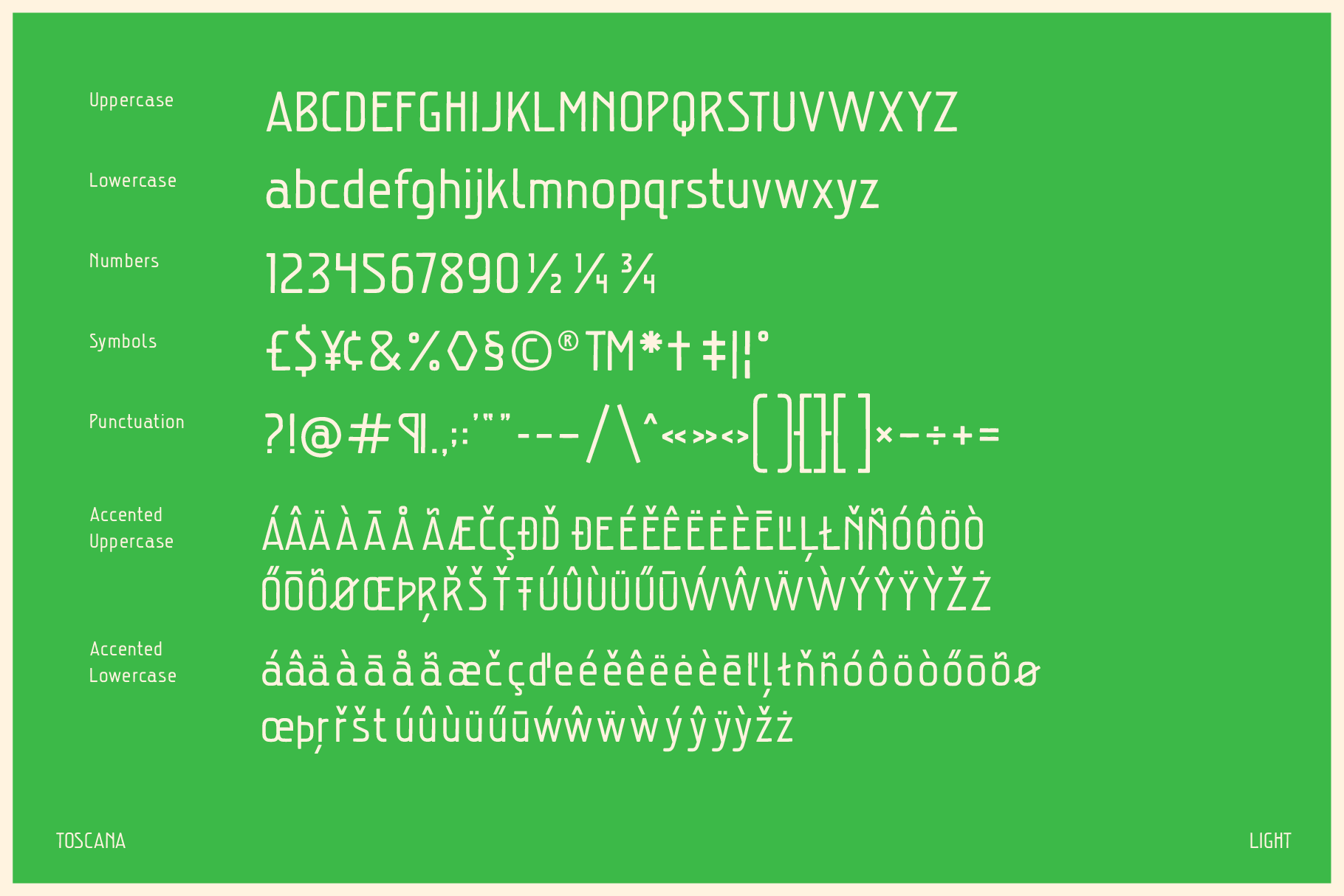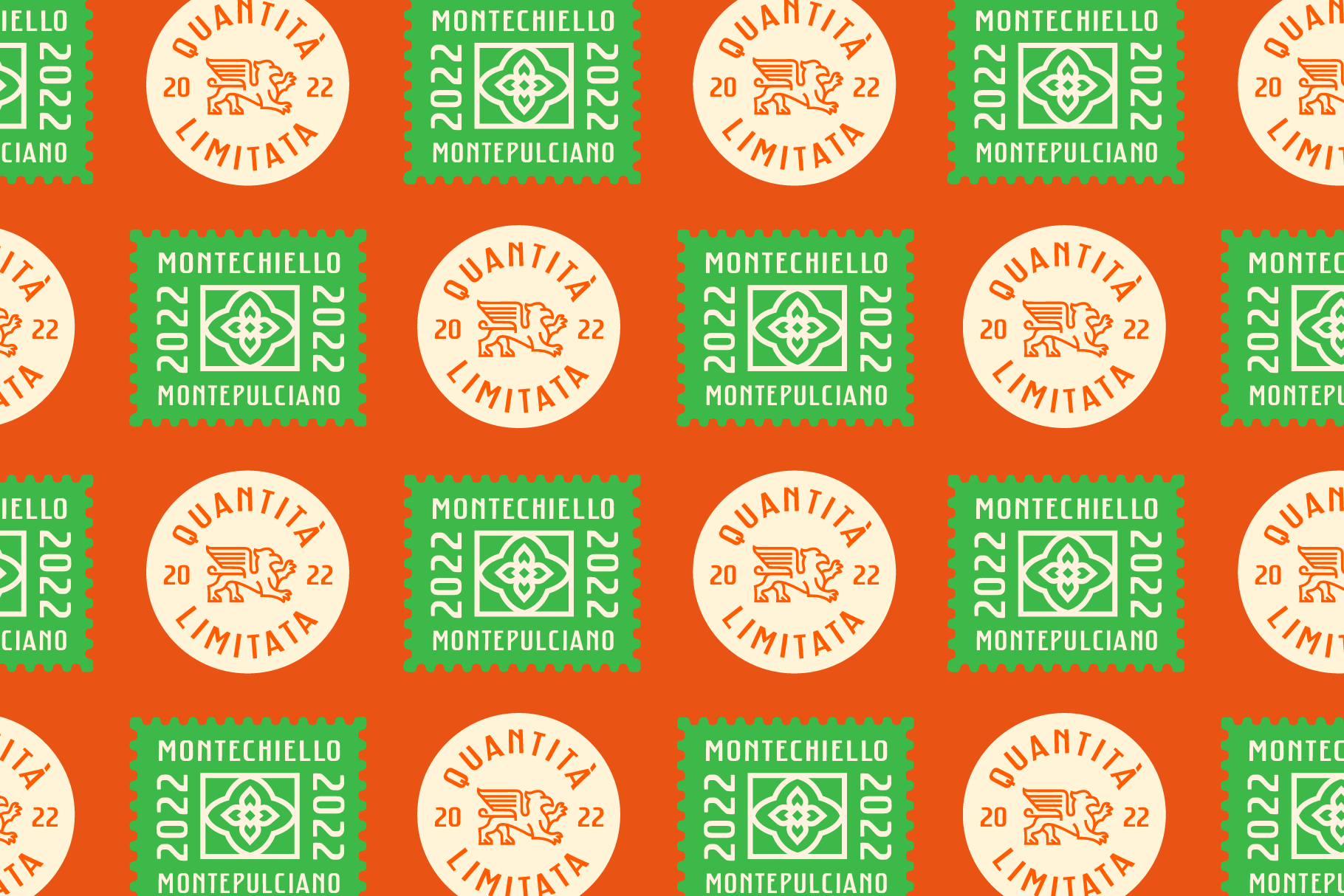
A traditional Italian style font family inspired by the rural landscape and characterful back streets of Tuscany. The blend
of gently rolling hills leading onto sharply peaked mountains
has influenced the natural shapes of the letterforms.
Toscana Light
Toscana Regular
Toscana Medium
Toscana Semi-Bold
Toscana Bold